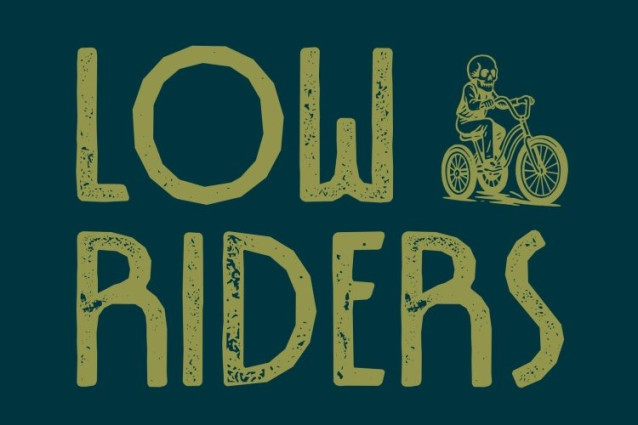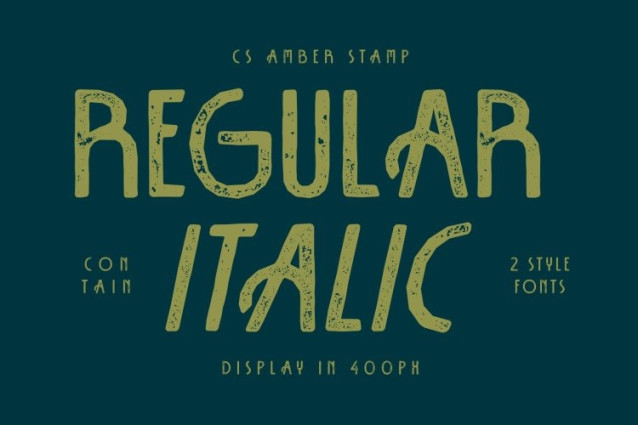
CS Amber Stamp Font
CS Amber Stamp Font This is a sans serif display font inspired by the refined beauty of Art Deco design. It embodies elegance, glamour, and luxury through clean geometry, balanced proportions, and symmetrical letterforms. Drawing from the opulent visual language of the early 20th century, this font delivers a prestigious and sophisticated tone that instantly elevates any design.
Classic Structure with Modern Refinement
While rooted in vintage Art Deco aesthetics, this font introduces a modern sensibility through its clarity and refined construction. The sleek lines and decorative nuances create a harmonious blend of classic charm and contemporary appeal, ensuring the font feels timeless yet relevant in modern design contexts.
Stamp Texture for Authentic Vintage Character
The distinctive stamp texture adds depth, tactility, and an authentic aged feel to the font. This subtle roughness enhances its vintage personality, evoking old print techniques and classic signage while giving designs a handcrafted, artistic quality. The result is a font that feels rich, expressive, and visually engaging.
Perfect for Luxury Branding and Elegant Displays
This is ideal for luxury branding, fashion labels, premium packaging, event invitations, posters, editorial headlines, and upscale visual identities. Its Art Deco influence paired with a stamped, vintage finish makes it perfect for projects that seek sophistication with character.